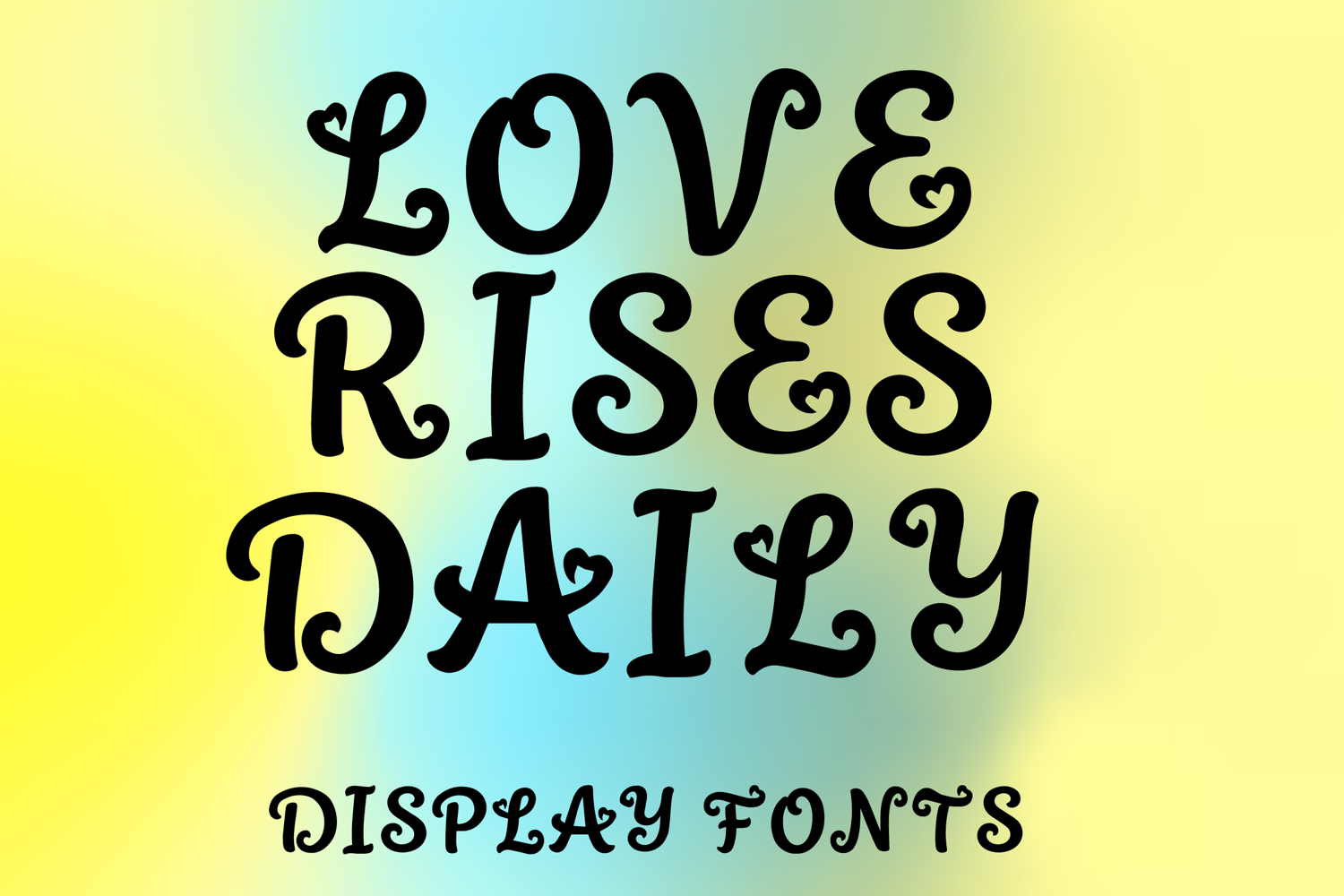
LOVE RISES DAILY
LOVE RISES DAILY is a whimsical decorative display font with a romantic hand-drawn style and charming artistic flair. Its uppercase letterforms feature soft curves, playful swirls, and sweet heart-inspired details that create a warm, elegant, and eye-catching look. Designed with uppercase letters A–Z and numbers 0–9, LOVE RISES DAILY is perfect for branding, invitations, posters, packaging, quotes, social media graphics, and creative projects that need a lovely and memorable statement.
LOVE RISES DAILY